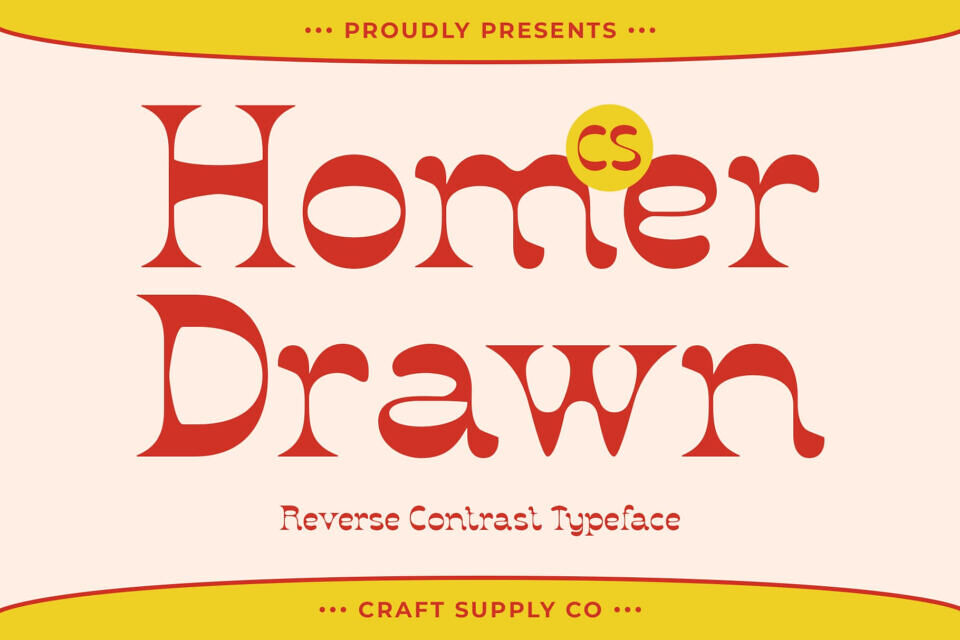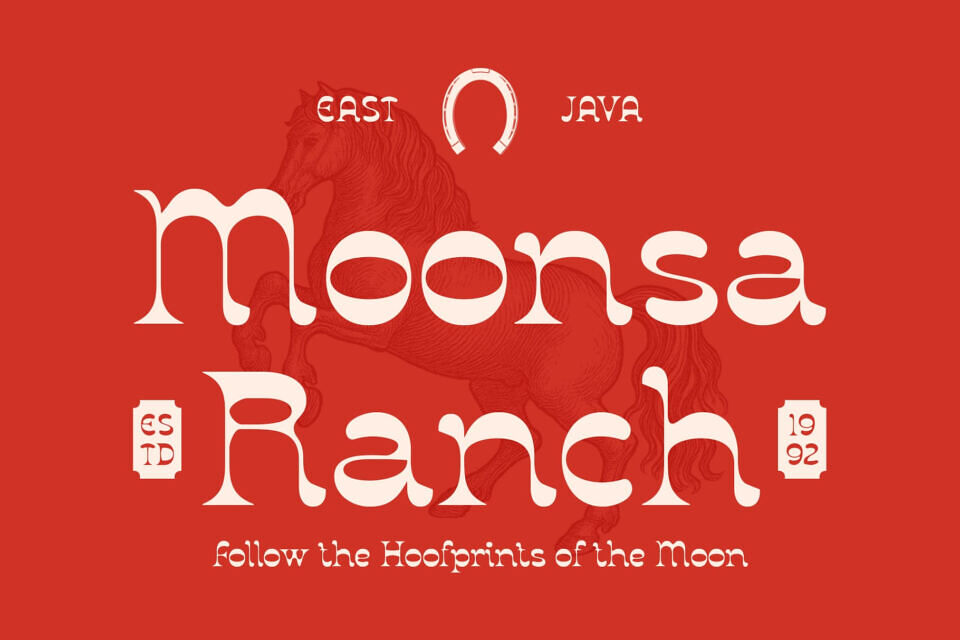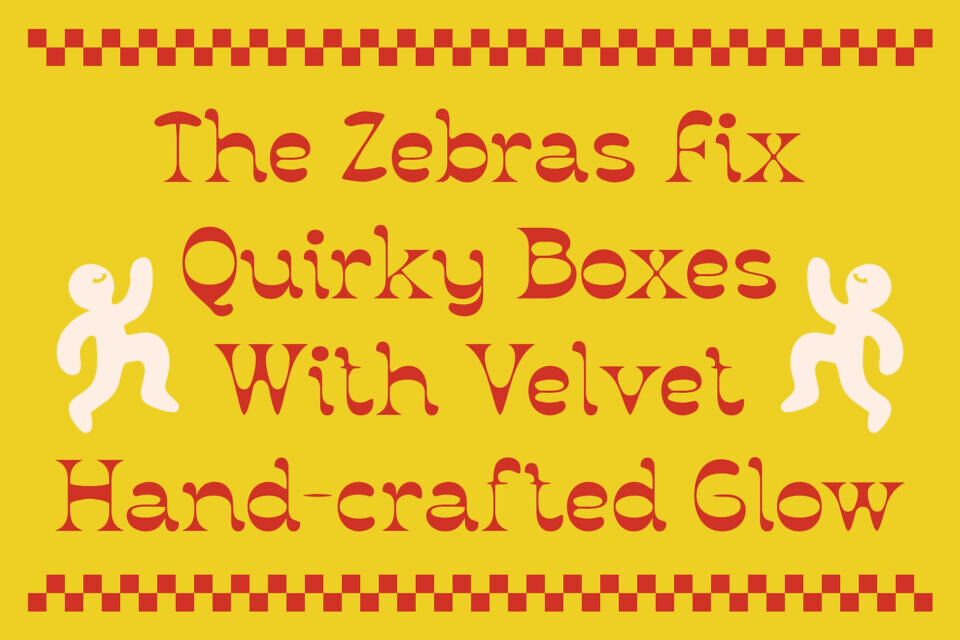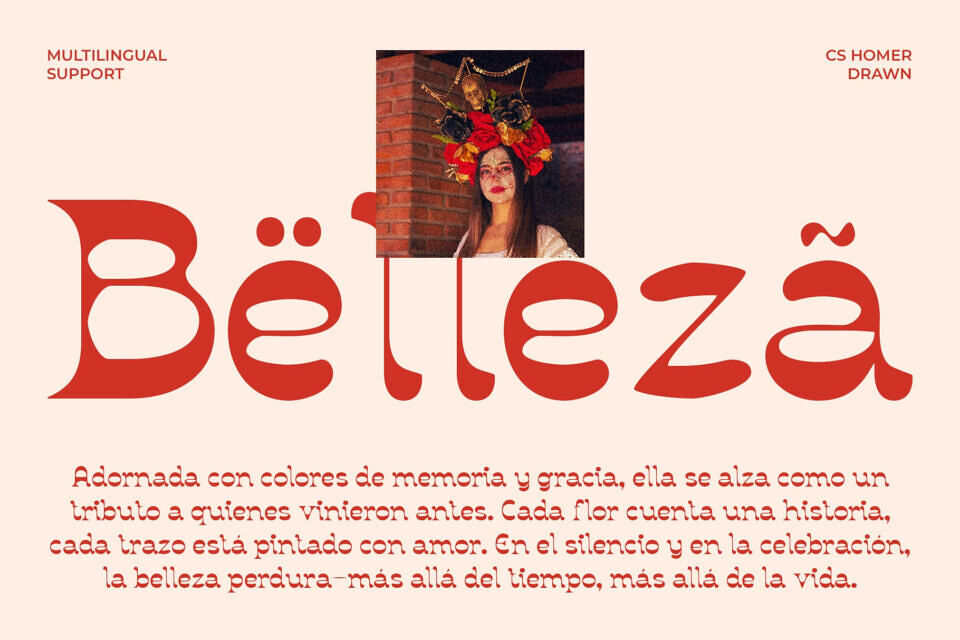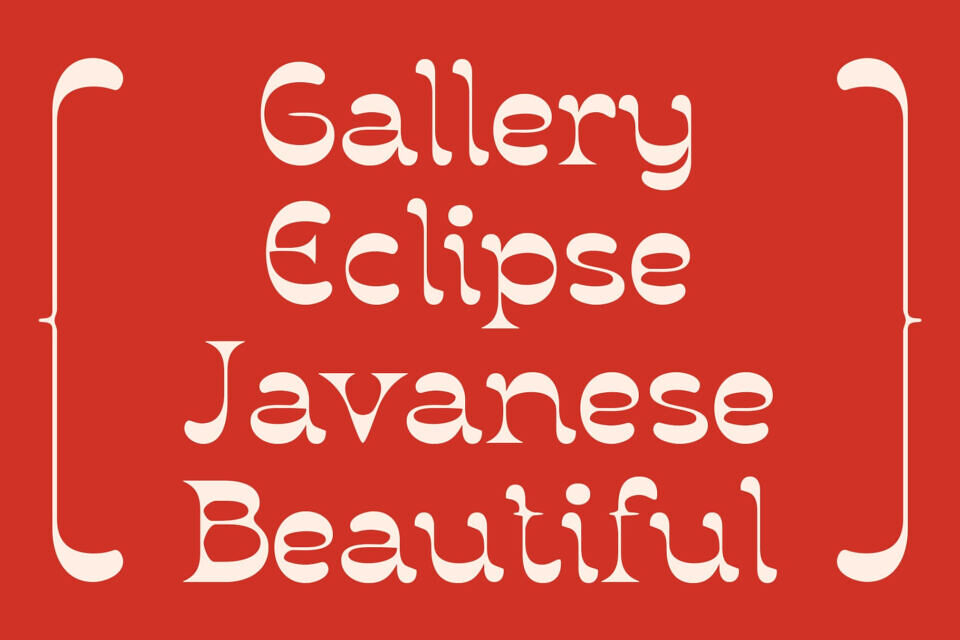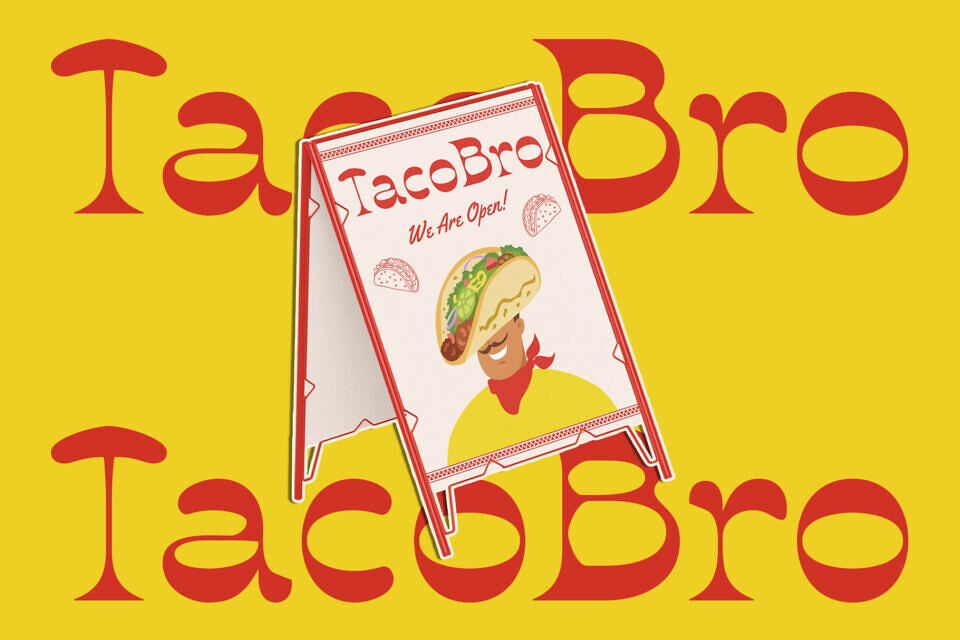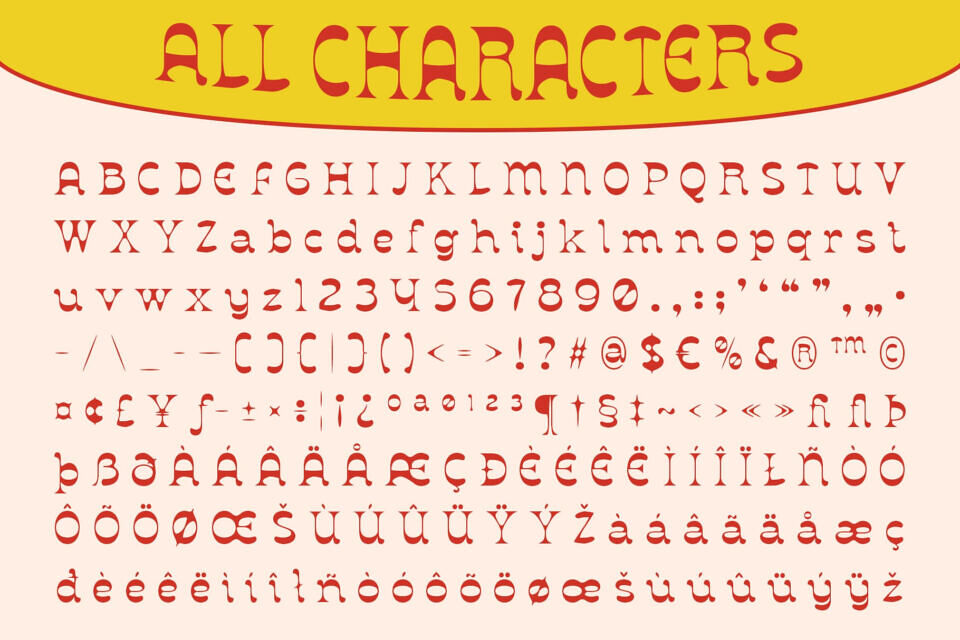
CS Homer Drawn is a retro display serif font that flips tradition with reverse contrast—thicker horizontal strokes for a bold, eye-catching effect. Inspired by 19th-century signage and wood type, it blends classic serif elegance with rebellious creativity.
Its hand-drawn texture adds a nostalgic, tactile charm, evoking hand-painted lettering. Perfect for headlines, logos, or posters, this font merges vintage roots with modern flair, offering designers a unique, expressive tool with personality and impact.